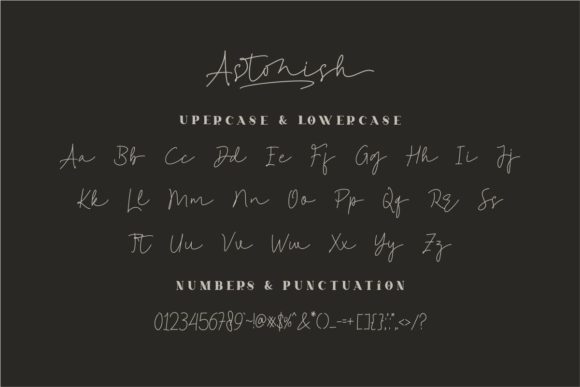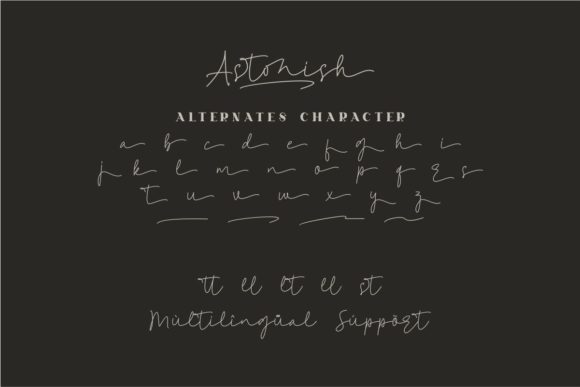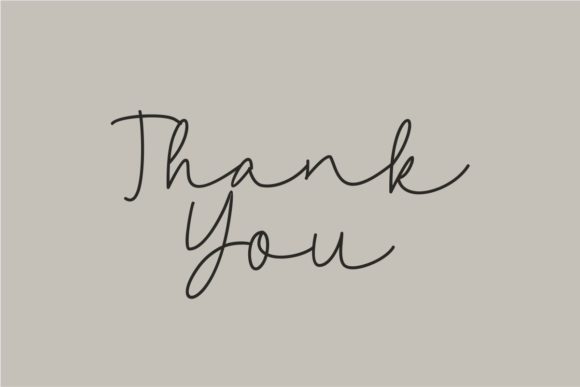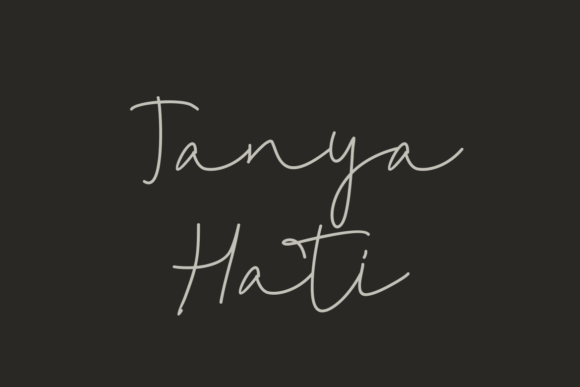
Astonish Font
About Astonish Font
Astonish is a lovely and timeless handwritten font. It is the best choice for creating eye catching logos, branding and quotes. Astonish is PUA encoded which means you can access all of the glyphs and swashes with ease!